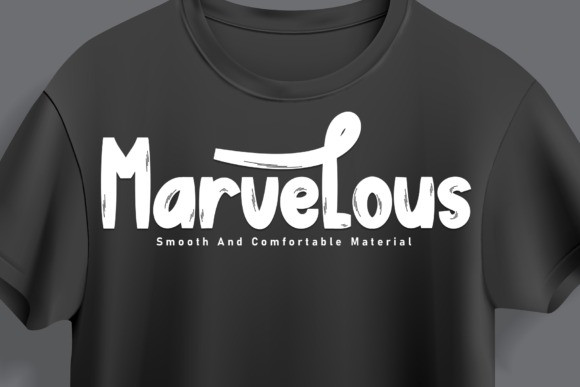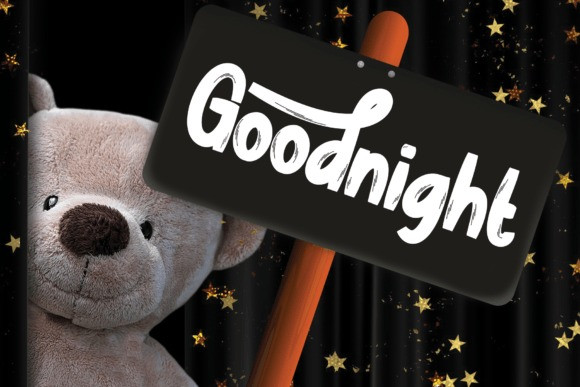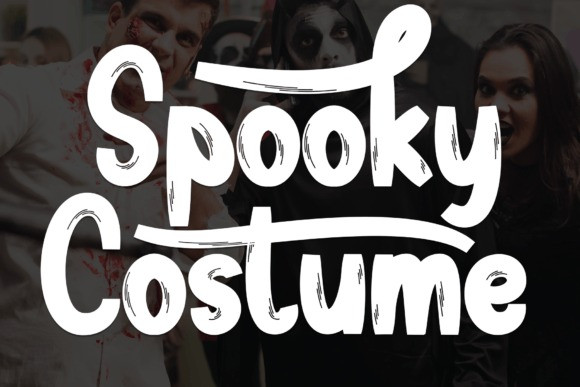
Spooky Costume Font
Spooky Costume Font is a sweet and friendly handwritten font. Its natural and unique style makes it incredibly fitting to a large pool of designs. The only limit is your imagination!